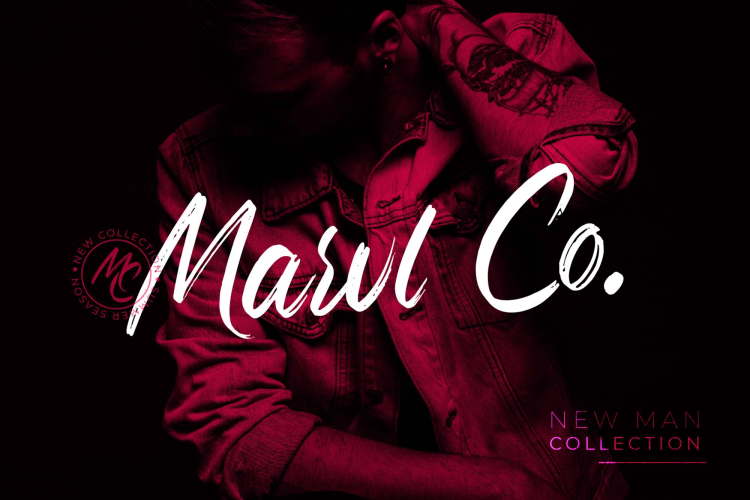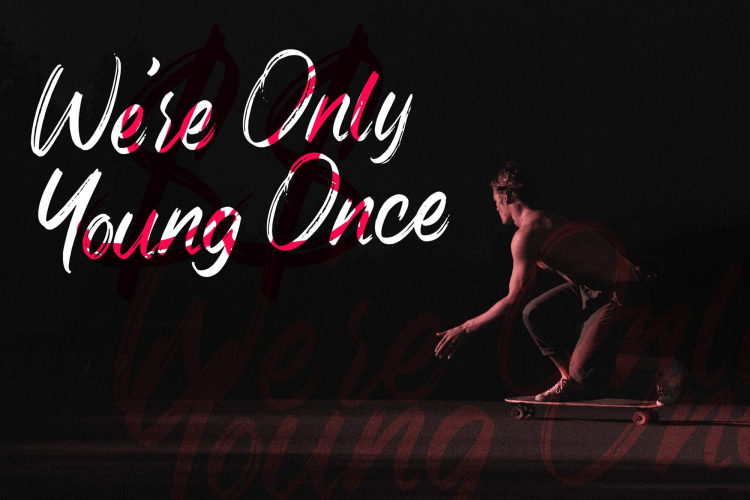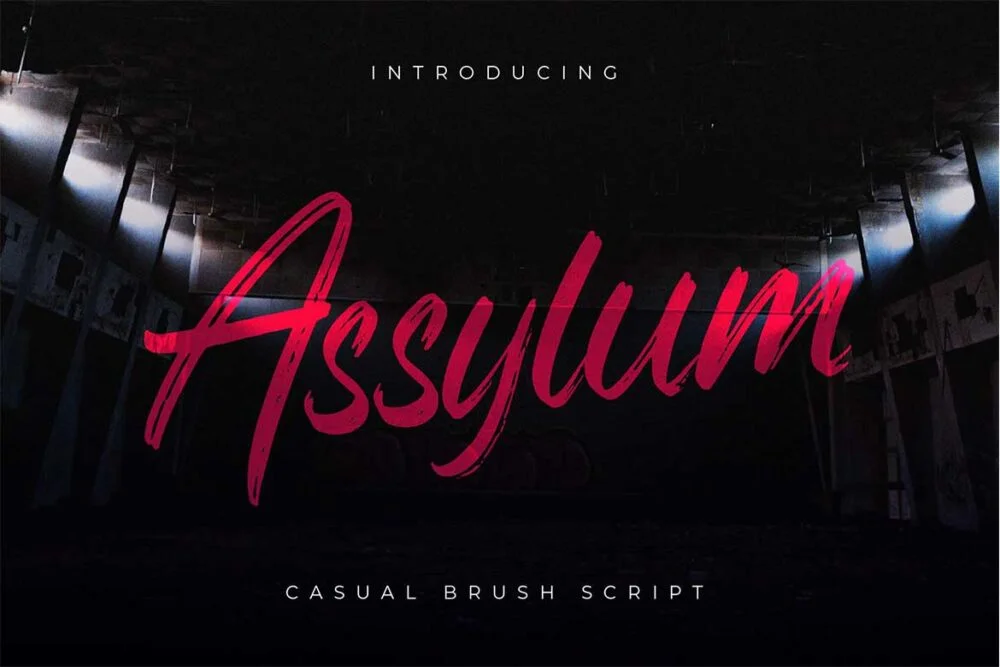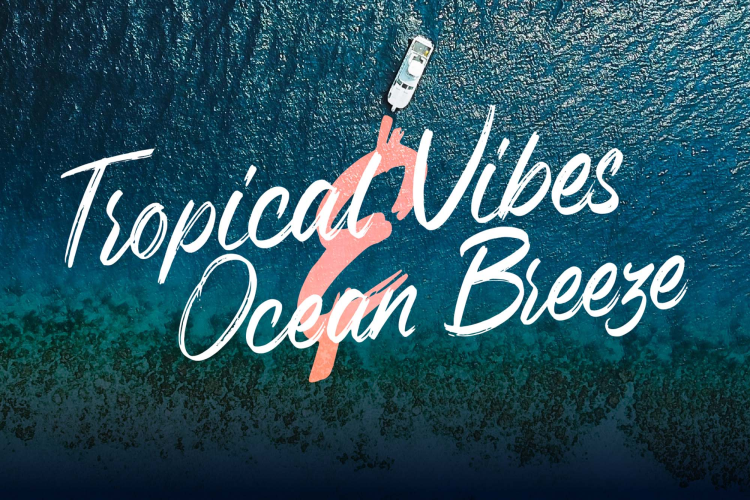
Assylum Font
Assylum Font is a casual handwritten brush characterized by its signature style dry strokes. It fits a range of design projects such as logo design, packaging, wedding cards, invitation cards and social media posts.
Assylum Font is a Script And Handwritten font that brings a professional and versatile look to your projects. Assylum Font is a casual handwritten brush characterized by its signature style dry strokes.